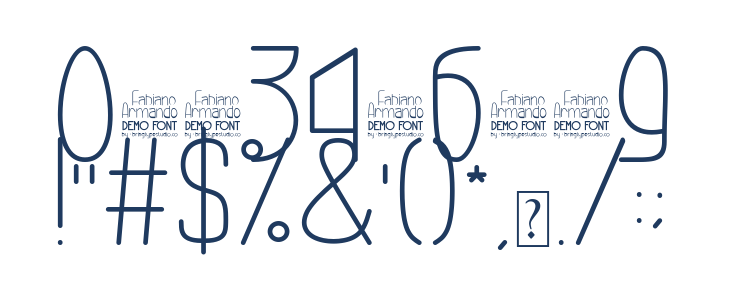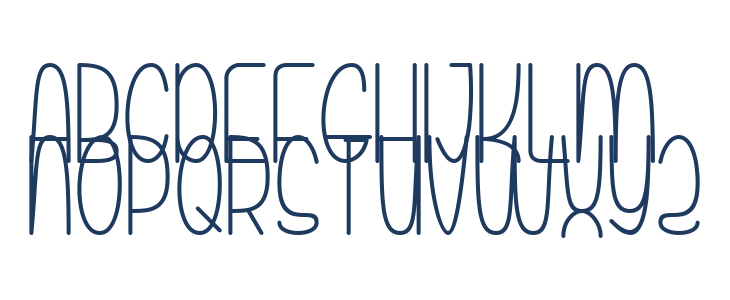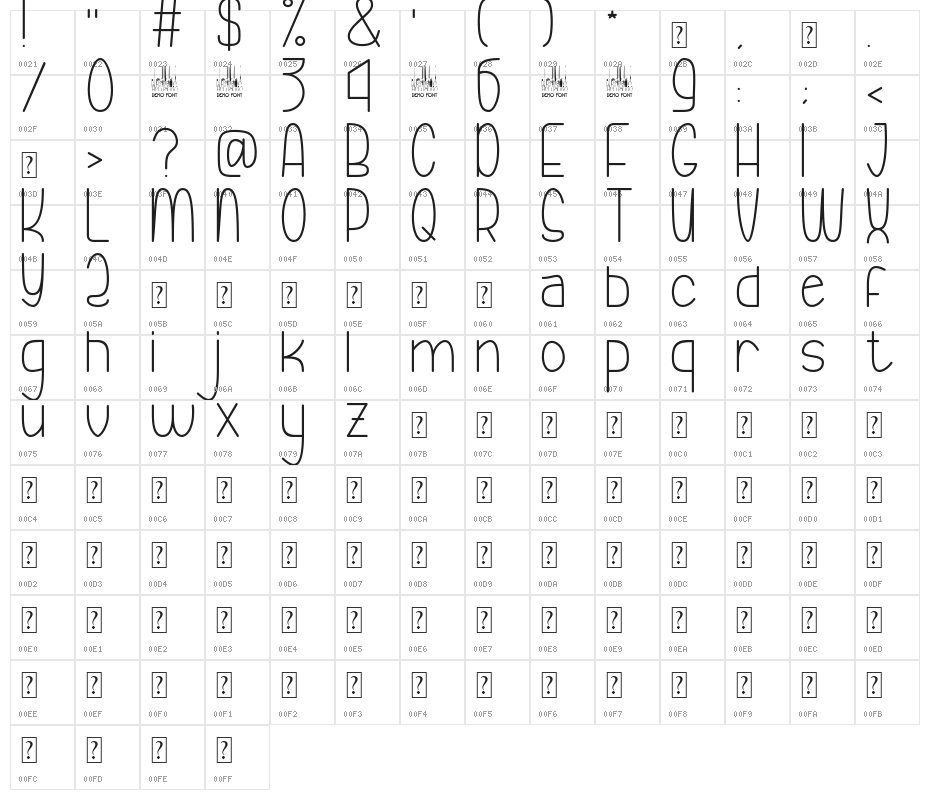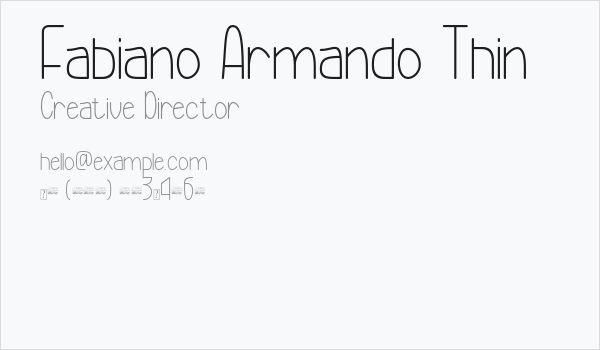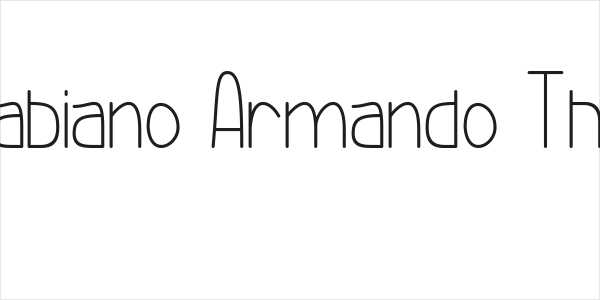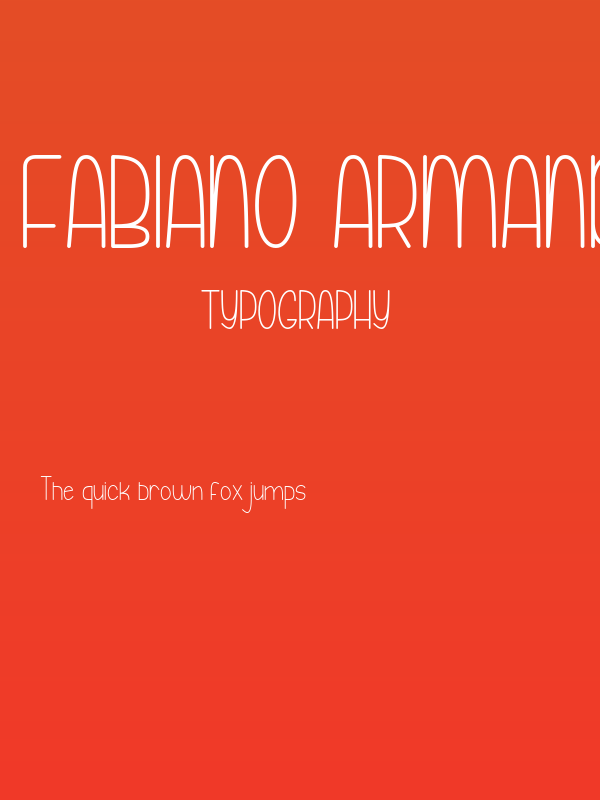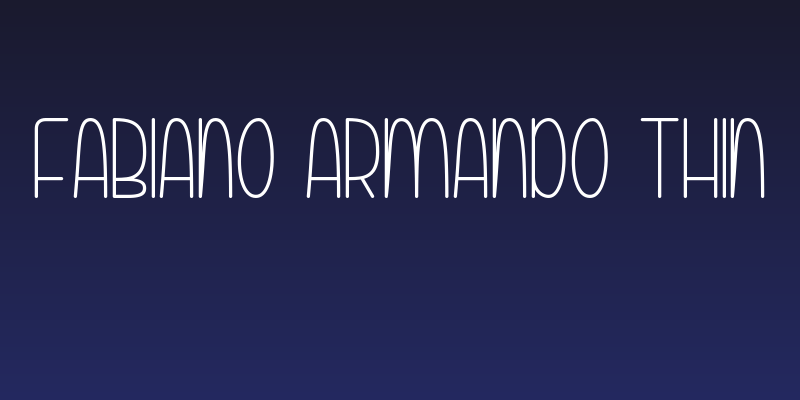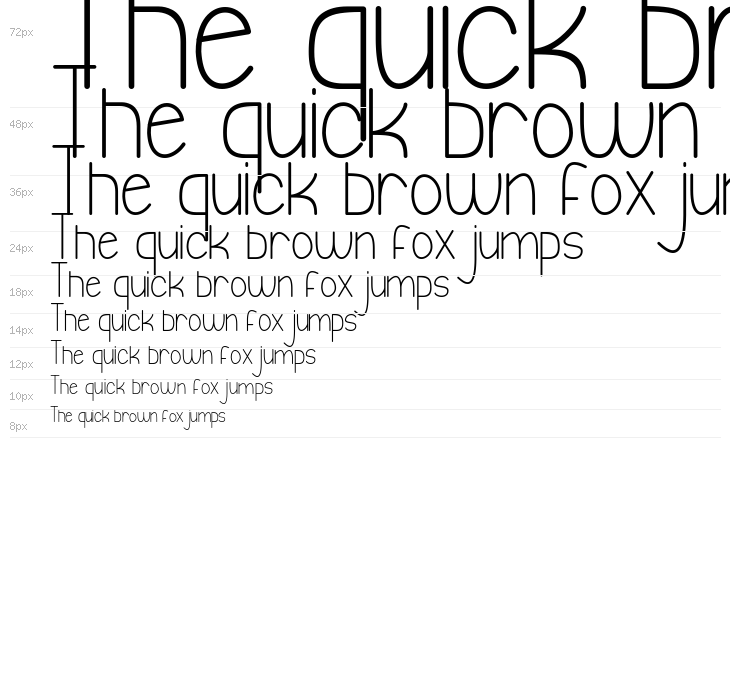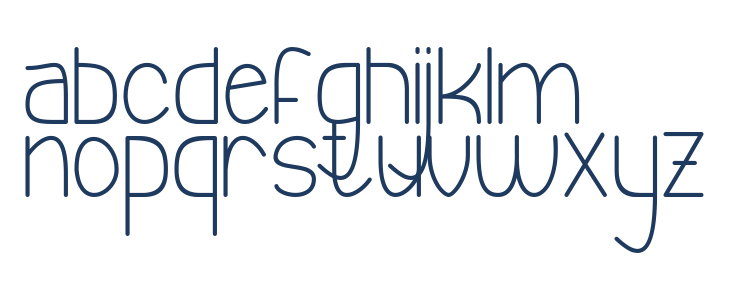
Fabiano Armando Thin Font
Fabiano Armando Thin Description
A thin, geometric sans-serif font with tall, narrow letterforms and rounded terminals. The characters are evenly spaced with a modern, minimalist appearance, and the lines are consistent in weight throughout.
| Overall Style | Modern, Minimalist |
| Use Case | Headlines, Logos, Display text |
| Proposed Projects | Posters, modern branding, editorial headlines, minimalist logos, tech interfaces. |